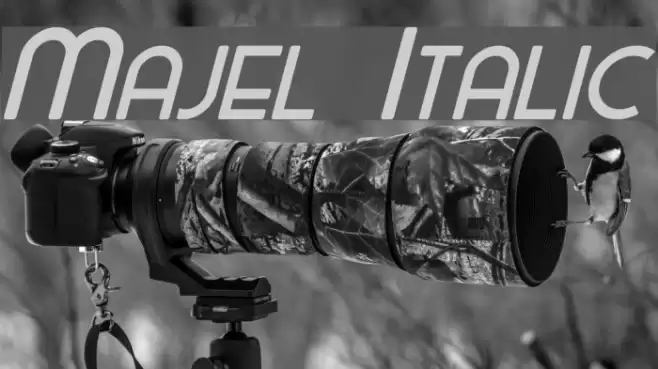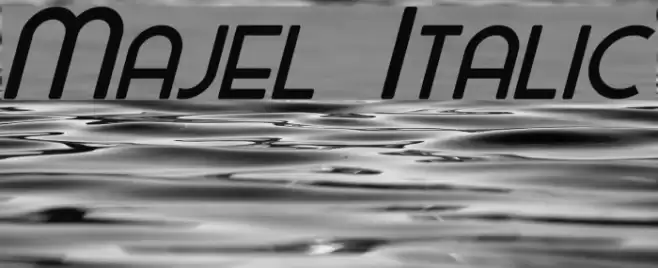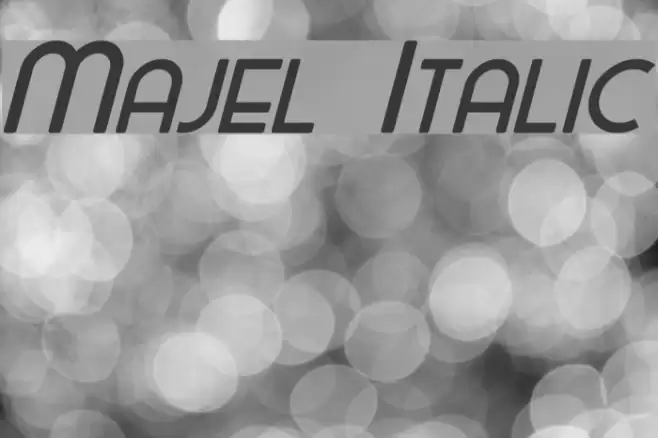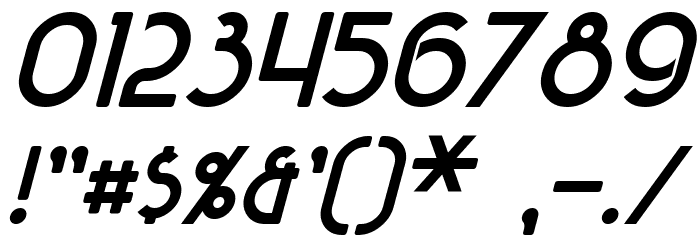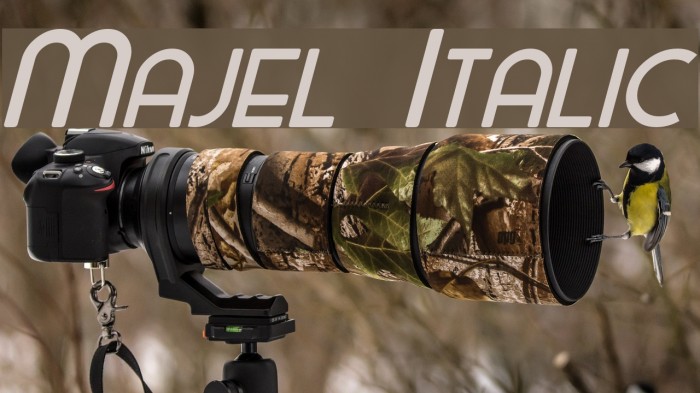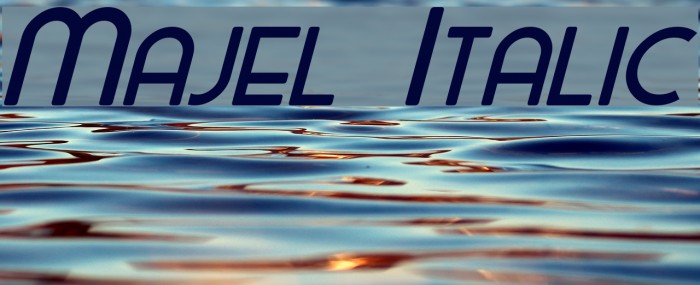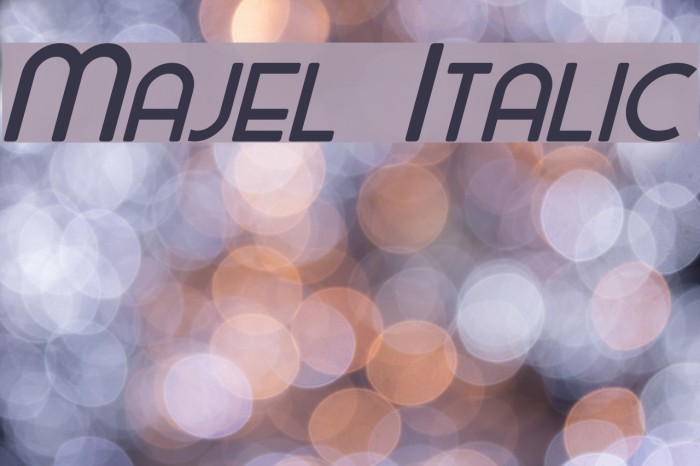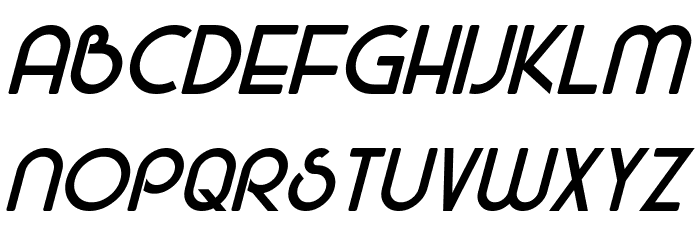
Majel Italic Font
Majel Italic Description
This font features a sleek and modern italic style with smooth curves and a slight forward slant, giving it a dynamic and elegant appearance. The characters are well-proportioned, with a consistent stroke width that maintains readability while adding a touch of sophistication. The uppercase and lowercase letters are distinct, with unique elements such as the curved tail on the 'Q' and the open loop of the 'g'. The numerals are clear and balanced, making them suitable for a variety of applications. Special characters are included, maintaining the font's cohesive style. Overall, this font is versatile, offering both style and functionality.
A sleek, modern italic font with smooth curves and a dynamic appearance from Fancy fonts.